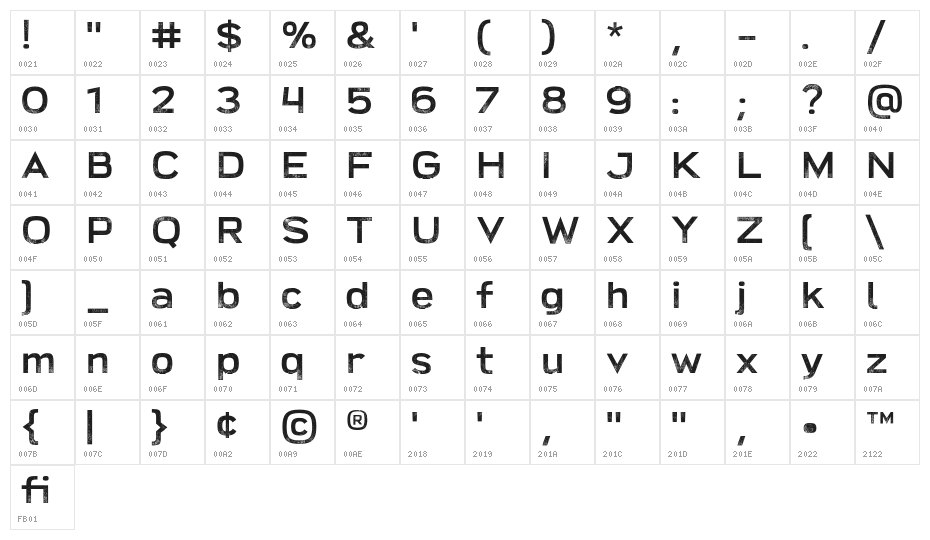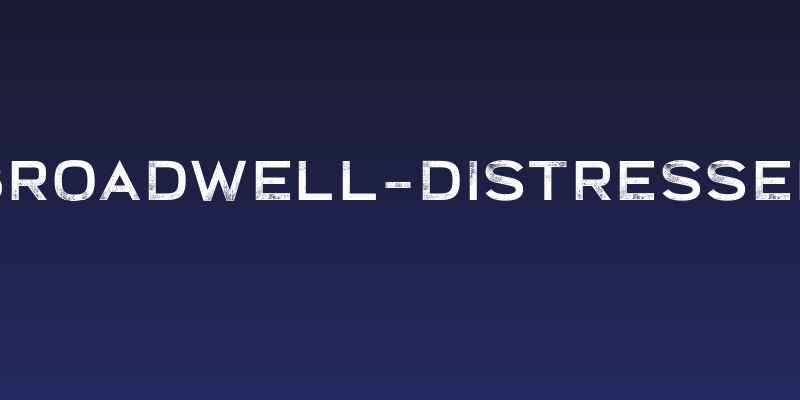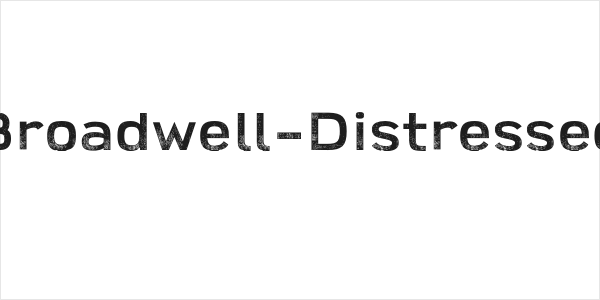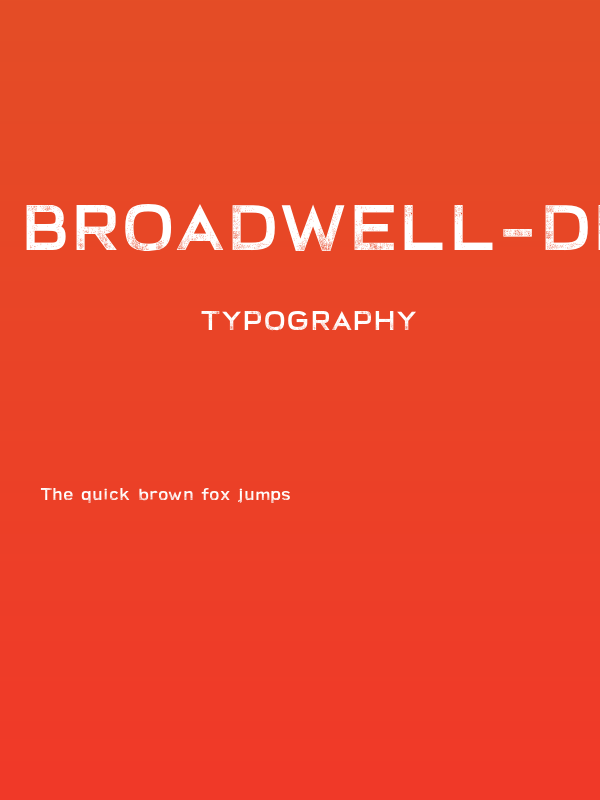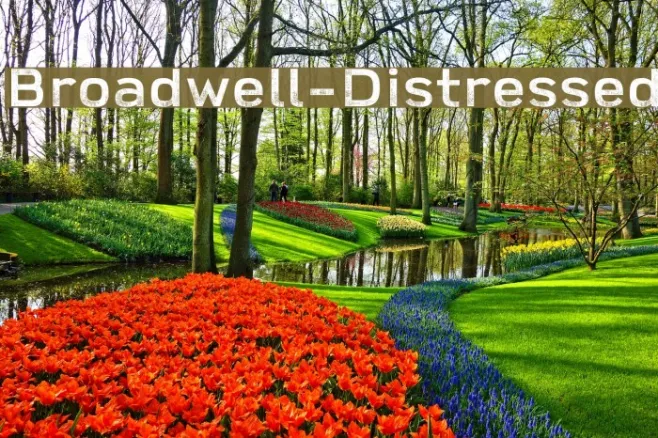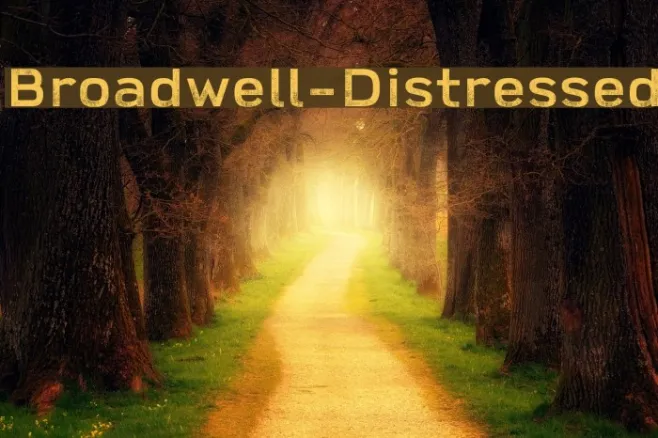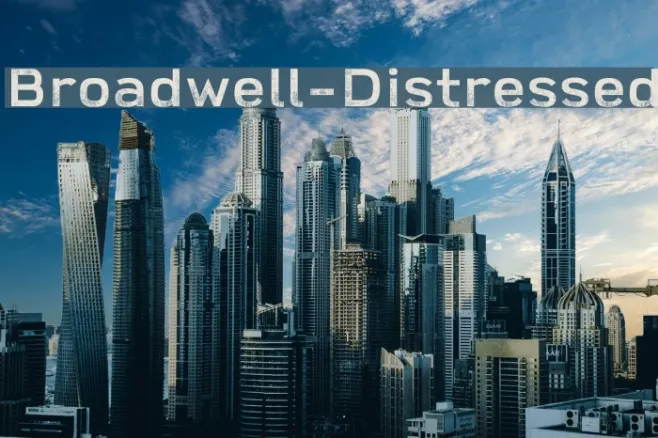
Broadwell-Distressed Font
Broadwell-Distressed Description
This font features a distressed, textured appearance that gives it a rugged and vintage feel. The uppercase and lowercase letters maintain a consistent width, providing a balanced look. The numerals and special characters follow the same distressed style, adding to the cohesive design. The font's bold weight and medium contrast make it stand out, while the normal width and character spacing ensure readability. Its unique style is perfect for projects that require a touch of nostalgia or a handcrafted aesthetic.
| Proposed Projects | Ideal for vintage posters, branding, logos, and any design needing a rustic or handcrafted touch. |